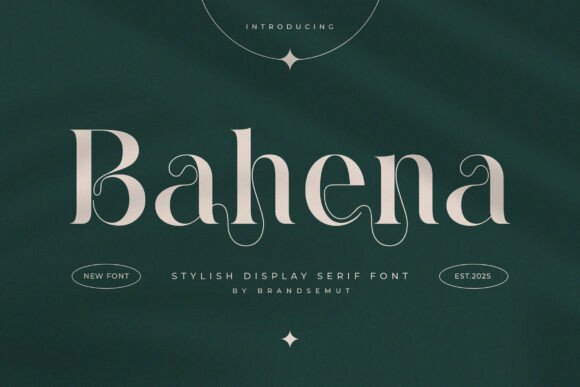
Bahena Font: Elevate Your Design with Timeless Elegance and Luxury
In the world of typography, a font can make or break the visual appeal of a design. For designers seeking to create a lasting impression, Bahena font is a game-changer. This refined modern display serif font masterfully balances classic grace and contemporary luxury, making it perfect for high-end branding, romantic design work, and luxury packaging.
Key Features of Bahena Font
- High-contrast strokes: Bahena’s high-contrast strokes add a touch of sophistication and elegance to any design.
- Sweeping swashes: The font’s sweeping swashes bring a sense of fluidity and movement to the text.
- Feminine sophistication: Bahena’s feminine charm makes it ideal for designs that require a touch of elegance and refinement.
- Sculpted serifs: The font’s serifs are carefully crafted to add a level of sophistication and luxury to the text.
- Fluid alternates and ligatures: Bahena’s alternates and ligatures provide designers with a range of creative options to enhance their designs.
Ideal Use Cases for Bahena Font
Bahena font is versatile and can be used in a variety of design projects, including:
- Fashion branding: Bahena’s luxurious feel makes it perfect for high-end fashion brands.
- Editorials: The font’s elegance and sophistication make it ideal for editorial designs, such as magazine covers and articles.
- Wedding stationery: Bahena’s romantic charm makes it perfect for wedding invitations, stationery, and other wedding-related designs.
- Luxury packaging: The font’s luxurious feel and high-end aesthetic make it ideal for luxury packaging designs.
What Comes with Bahena Font?
Bahena font comes with a range of features that make it easy to use and versatile. These include:
- Uppercase and lowercase sets: The font includes both uppercase and lowercase letterforms, providing designers with a range of creative options.
- Elegant stylistic alternates: Bahena includes elegant stylistic alternates that allow designers to add a touch of sophistication to their designs.
- Multilingual support: The font supports multiple languages, making it perfect for designers working on international projects.
- PUA encoding: The font includes PUA encoding, which makes it easy to access special characters and decorative elements without additional software.
Benefits of Using Bahena Font in Your Design
Bahena font offers a range of benefits to designers, including:
- Timeless elegance: Bahena’s classic design ensures that it will remain timeless and elegant for years to come.
- Expressive luxury: The font’s luxurious feel and high-end aesthetic make it perfect for designers seeking to create a lasting impression.
- Visual harmony: Bahena’s carefully crafted letterforms and elegant design create a sense of visual harmony that elevates any design.
- Easy to use: The font’s PUA encoding and range of features make it easy to use and versatile.
Tips for Using Bahena Font in Your Design
To get the most out of Bahena font, here are some design tips to keep in mind:
- Use it sparingly: Bahena font is perfect for headlines and titles, but can be overwhelming if used excessively.
- Experiment with alternates: The font’s elegant stylistic alternates provide designers with a range of creative options to enhance their designs.
- Pair it with a sans-serif font: Bahena font pairs well with sans-serif fonts, creating a striking contrast that adds visual interest to any design.
Bahena font is a refined modern display serif font that offers a range of benefits to designers. Its timeless elegance, expressive luxury, and visual harmony make it perfect for high-end branding, romantic design work, and luxury packaging. With its range of features, including uppercase and lowercase sets, elegant stylistic alternates, and multilingual support, Bahena font is a must-have for designers seeking to create a lasting impression.